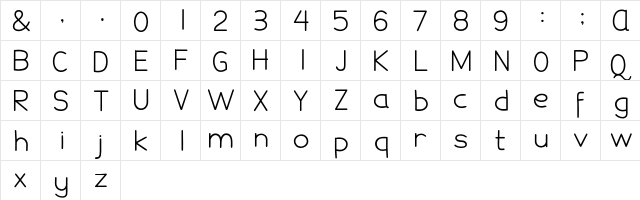
Damai Pelajar Regular
Design Context for Damai Pelajar Typeface
Damai Pelajar offers clean, dependable letterforms without strong stylistic allegiance, making it a practical choice for designers who need flexibility.
Pro Tip: Use Damai Pelajar in both headline and body roles to test its range before committing to a single application.